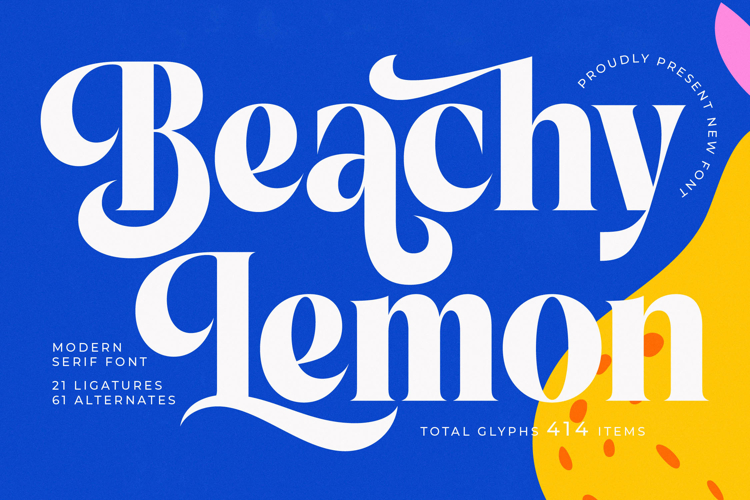
Beachy Lemon - Modern Serif Font
Discover the captivating allure of Beachy Lemon - Modern Serif Font, a typeface meticulously designed to infuse your projects with unmatched elegance and playful sophistication. This exquisite modern serif embodies a contemporary aesthetic with its unique blend of flowing curves and confident, high-contrast strokes, creating a visually striking presence that commands attention. It's the perfect choice for designers seeking a font that delivers both impactful personality and refined character.
Unleash unparalleled creative freedom with Beachy Lemon - Modern Serif Font, thoughtfully crafted with 21 expressive ligatures and 61 versatile alternates. These extensive stylistic sets empower you to craft truly unique headlines, captivating logos, and memorable branding elements, ensuring every design stands out with a distinctive, custom-made feel. Elevate your typography to an art form, making every word resonate with its own inherent charm.
Expand your global reach effortlessly with Beachy Lemon - Modern Serif Font. With its extensive multilingual support, Beachy Lemon - Modern Serif Font adapts seamlessly across global markets, making it incredibly versatile for international projects. This commitment to linguistic inclusivity ensures your message maintains its intended impact and professional integrity, connecting with diverse audiences worldwide without compromise.